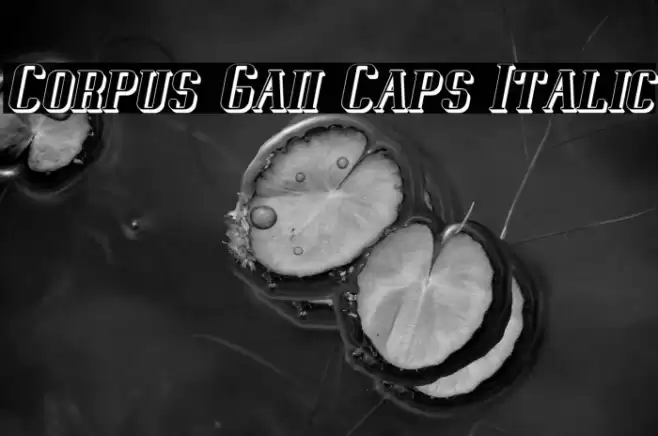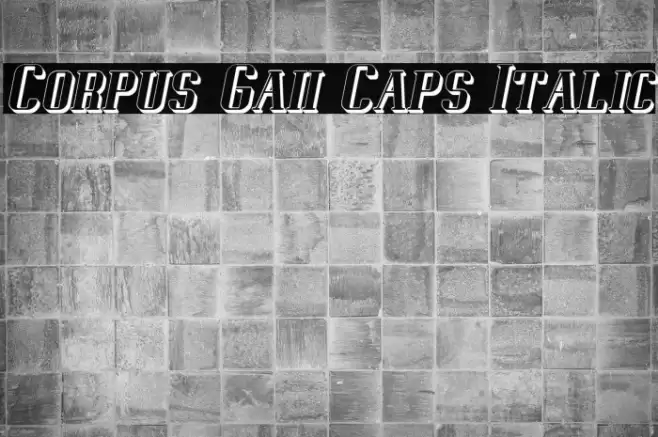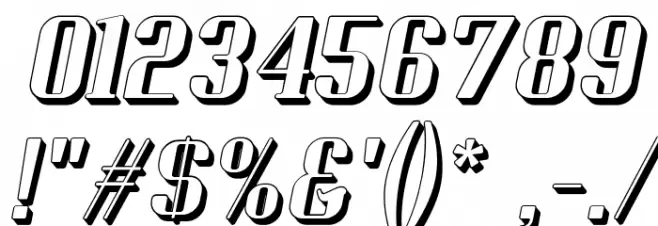
Corpus Gaii Caps Italic Font
Corpus Gaii Caps Italic Description
This font features a bold and dynamic italic style with a strong presence. The characters are designed with a slight slant, giving them a sense of motion and energy. Each letter is outlined with a shadow effect, adding depth and a three-dimensional appearance. The strokes are consistent and bold, providing a clear and impactful look. The numbers and special characters maintain the same stylistic features, ensuring uniformity across all glyphs. This font is ideal for creating attention-grabbing headlines and titles.
A bold, italic font with shadow effects and dynamic styling from Uncategorized fonts.
- Proposed Projects: Ideal for sports branding, dynamic posters, and eye-catching headlines.